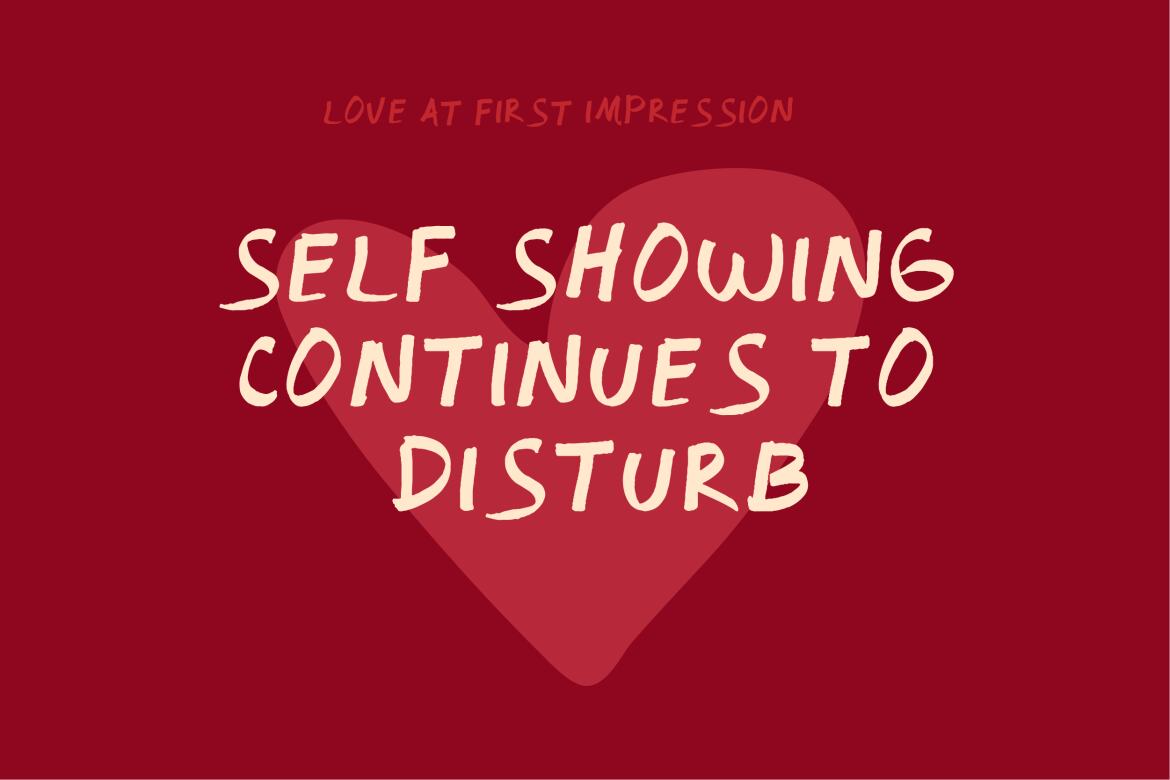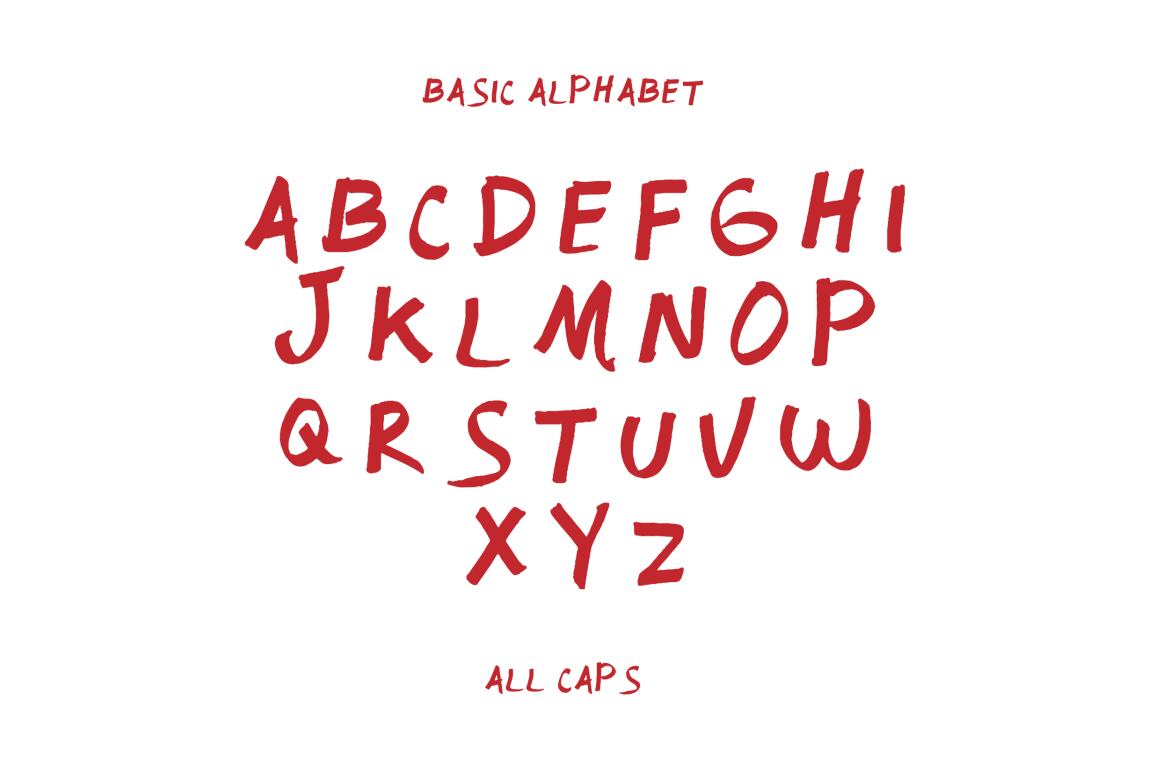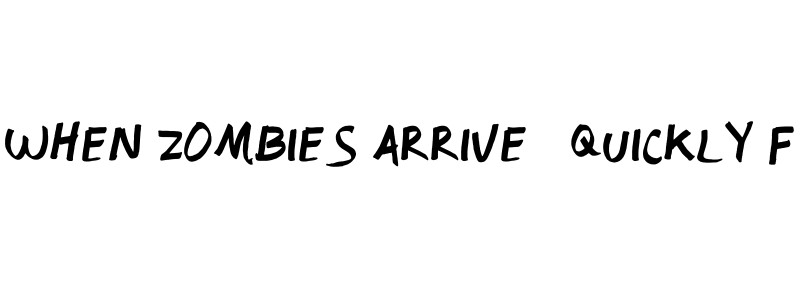
Saturasa Swindu FREE Font
Saturasa Swindu
Saturasa Swindu is a freestyle font that will make your project more stylish and free! You can use this font for any project. Suitable for quotes and your tees design.